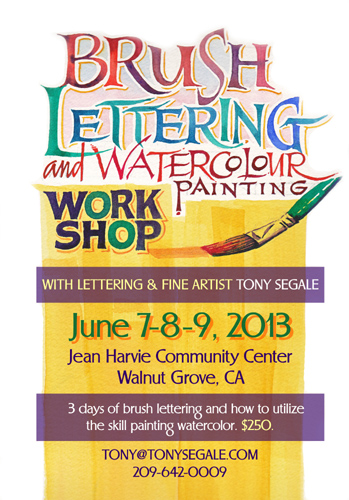
Brush Lettering Workshop 2015
BrLett copy2.jpg February 27, 28 and March 1, 2015. Come spend three days inside my new gallery, behind the gilded windows we will have a bit of fun learning the techniques necessary to rletter the three basic lettering styles - Roman, San Serif and Script. Fluidly practicing with water based paint...
Re: Brush work only
excellent... pencil, paper, brush, hand lettering
nice one stroke lettering
found this, post here for your entertainment
nice example of one stroke hand lettering,
before the four letter 'f' word entered the picture